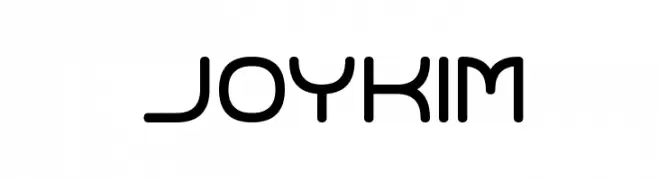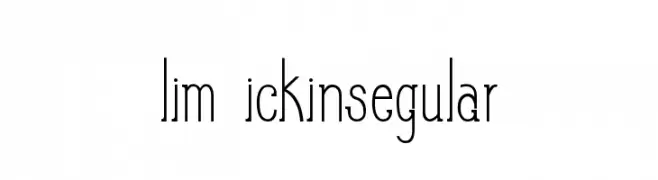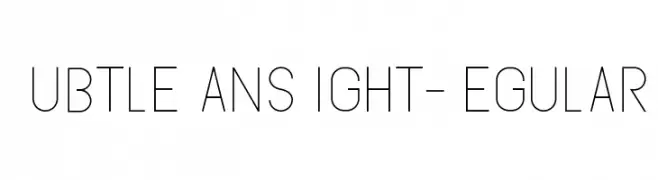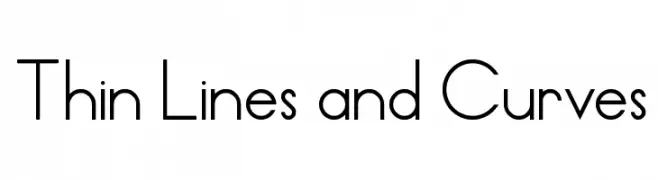
( Atle Mo - www.subtlepatterns.com/ )
A clean, minimalist font with thin, uniform strokes and geometric shapes.
( Atle Mo - www.subtlepatterns.com/ )
An ultra-light, minimalist sans-serif font with thin, elegant strokes.
( Barwuah Anam )
A sleek, modern geometric font with consistent line weight and minimalist design.
( Bayley Design - William Bayley - behance.net/bayleydesign www.freshcomfonts.co.uk/william-suckling-22-c.asp )
A minimalist, geometric font with thin, clean lines and a modern aesthetic.
( Brad Terry - bradterry.net )
A sleek, modern font with thin lines and smooth curves, ideal for minimalist designs.
( Carly Fisher )
A sleek, minimalist font with thin, elongated letterforms.
( Chen Yining )
A clean, modern sans-serif font with a light weight and minimalistic design.
( Chequered Ink - chequered.ink/ )
A modern, sleek font with tall, narrow characters and a minimalist design.
( Chequered Ink - chequered.ink/ )
A modern, geometric font with rounded edges and a minimalist style.
( Ciusan - Dannie Herdyawan - www.ciusan.com/ )
A geometric, minimalist font with thin lines and angular shapes, perfect for modern designs.